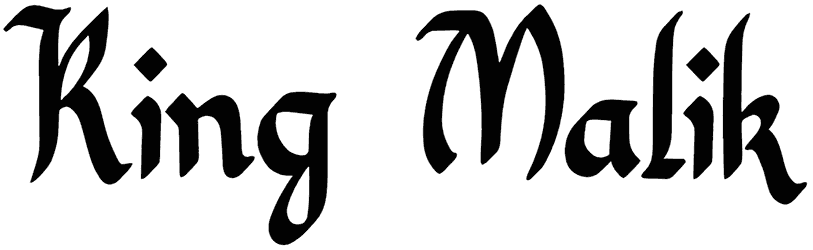
King Malik Font
If you want to put a historical costume on your content, King Malik is like a time machine to reach this goal. Using this Arabic font, which has a classic style, you can create a historical association and create a sense of originality in the viewer. That’s why using this black letter font in logos, posters, introducing historical films, and museums can make you more successful in branding.
King Malik is an interesting display font inspired by the style and feel of the Turkish font.